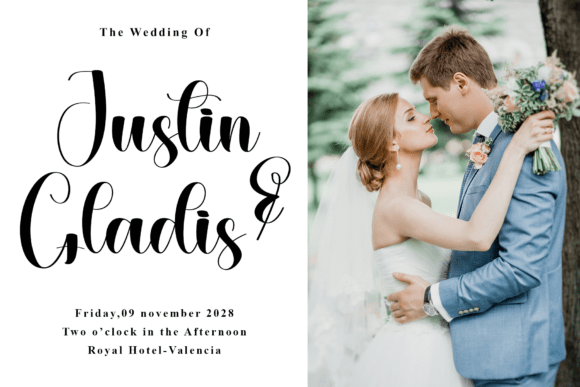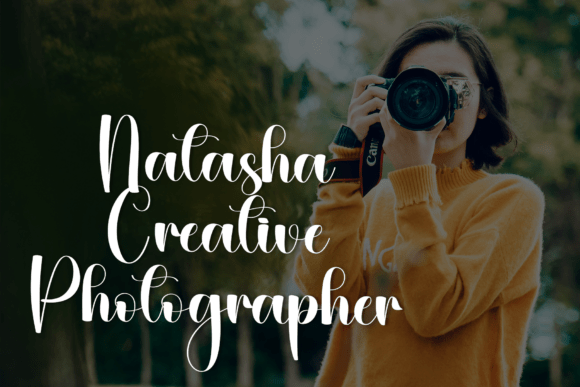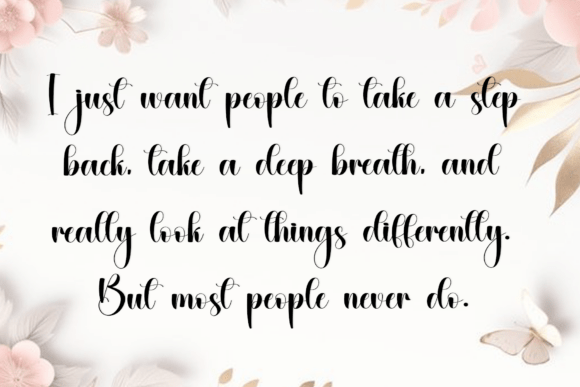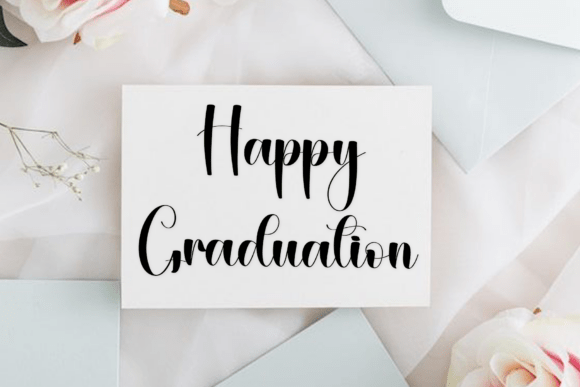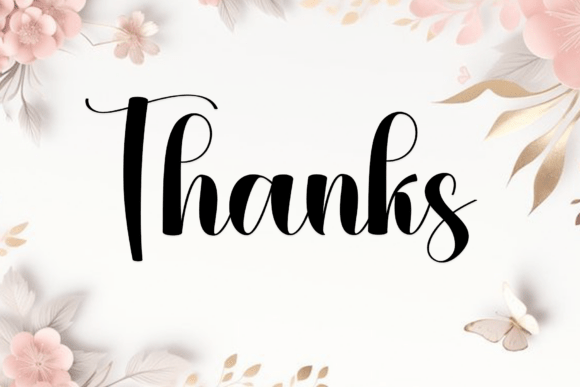
Glamour Font: Elevate Your Designs with Elegance and Sophistication
In the world of typography, few fonts capture the essence of luxury and refinement as effortlessly as Glamour Font. This modern script is designed to radiate charm and sophistication, making it a perfect choice for designers and crafters looking to add a touch of elegance to their projects. With its flowing curves, elegant letterforms, and high contrast strokes, Glamour Font is sure to elevate your designs to new heights.
The Characteristics of Glamour Font
Glamour Font is a masterclass in typographic design, boasting a range of features that set it apart from other scripts. Some of its key characteristics include:
• Tall, Expressive Ascenders: Glamour Font’s ascenders are tall and elegant, adding a sense of drama and flair to your designs.
• Generous Loops: The font’s loops are generous and flowing, creating a sense of movement and fluidity.
• Smooth, Fluid Connections: The connections between letters are smooth and fluid, creating a sense of continuity and harmony.
• High Contrast Strokes: The contrast between thick downstrokes and thin upstrokes is high, enhancing the font’s visual rhythm and making it both decorative and legible.
The Benefits of Using Glamour Font
So why choose Glamour Font for your next design project? Here are just a few benefits of using this stunning script:
• Elegance and Sophistication: Glamour Font is the perfect choice for designs that require a touch of luxury and refinement.
• Versatility: The font is suitable for a wide range of projects, from wedding invitations and branding materials to packaging and advertising.
• Legibility: Despite its decorative nature, Glamour Font is highly legible, making it perfect for use in both print and digital applications.
• Uniqueness: Glamour Font is a unique and distinctive script that will help your designs stand out from the crowd.
Using Glamour Font in Your Designs
So how can you use Glamour Font in your designs? Here are a few ideas to get you started:
• Wedding Invitations: Glamour Font is a perfect choice for wedding invitations, adding a touch of elegance and sophistication to your designs.
• Branding Materials: Use Glamour Font to create luxurious branding materials, such as business cards, letterheads, and packaging.
• Advertising: The font’s high contrast strokes and elegant letterforms make it perfect for use in advertising, particularly in luxury goods and services.
• Packaging: Glamour Font is a great choice for packaging design, adding a touch of sophistication and elegance to your products.
Tips for Working with Glamour Font
Here are a few tips for working with Glamour Font:
• Use it Sparingly: Glamour Font is a decorative script, so use it sparingly to avoid overwhelming your designs.
• Pair it with Simple Fonts: Pair Glamour Font with simple, sans-serif fonts to create a striking contrast.
• Experiment with Colors: Glamour Font looks stunning in metallic colors, such as gold and silver, but feel free to experiment with different colors to find the perfect fit for your design.
Glamour Font is a stunning script that is sure to elevate your designs to new heights. With its elegant letterforms, flowing curves, and high contrast strokes, it’s the perfect choice for designers and crafters looking to add a touch of luxury and refinement to their projects. Whether you’re creating wedding invitations, branding materials, or packaging, Glamour Font is a versatile and sophisticated choice that is sure to impress.